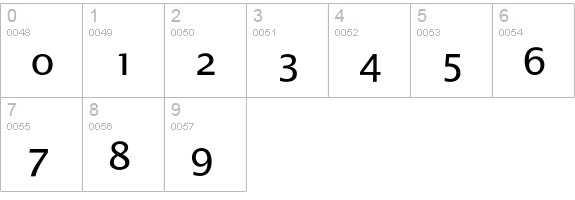
Alphabet4-SmallCaps Font Details
Alphabet4-SmallCaps is a stylish and modern font that brings a unique touch to any design project. This versatile typeface features small caps letters that add a sophisticated and elegant look. The clean lines and sharp edges of Alphabet4-SmallCaps make it perfect for a wide range of applications, from logos to headings to branding materials. Best of all, Alphabet4-SmallCaps is available for free download at FontsMarket.com. This means you can easily access this high-quality font to enhance your projects without any cost. Whether you're a designer looking to add a touch of class to your work or a business owner wanting to create a professional image, Alphabet4-SmallCaps is the perfect choice. Download it today and elevate your designs with this elegant and contemporary font.